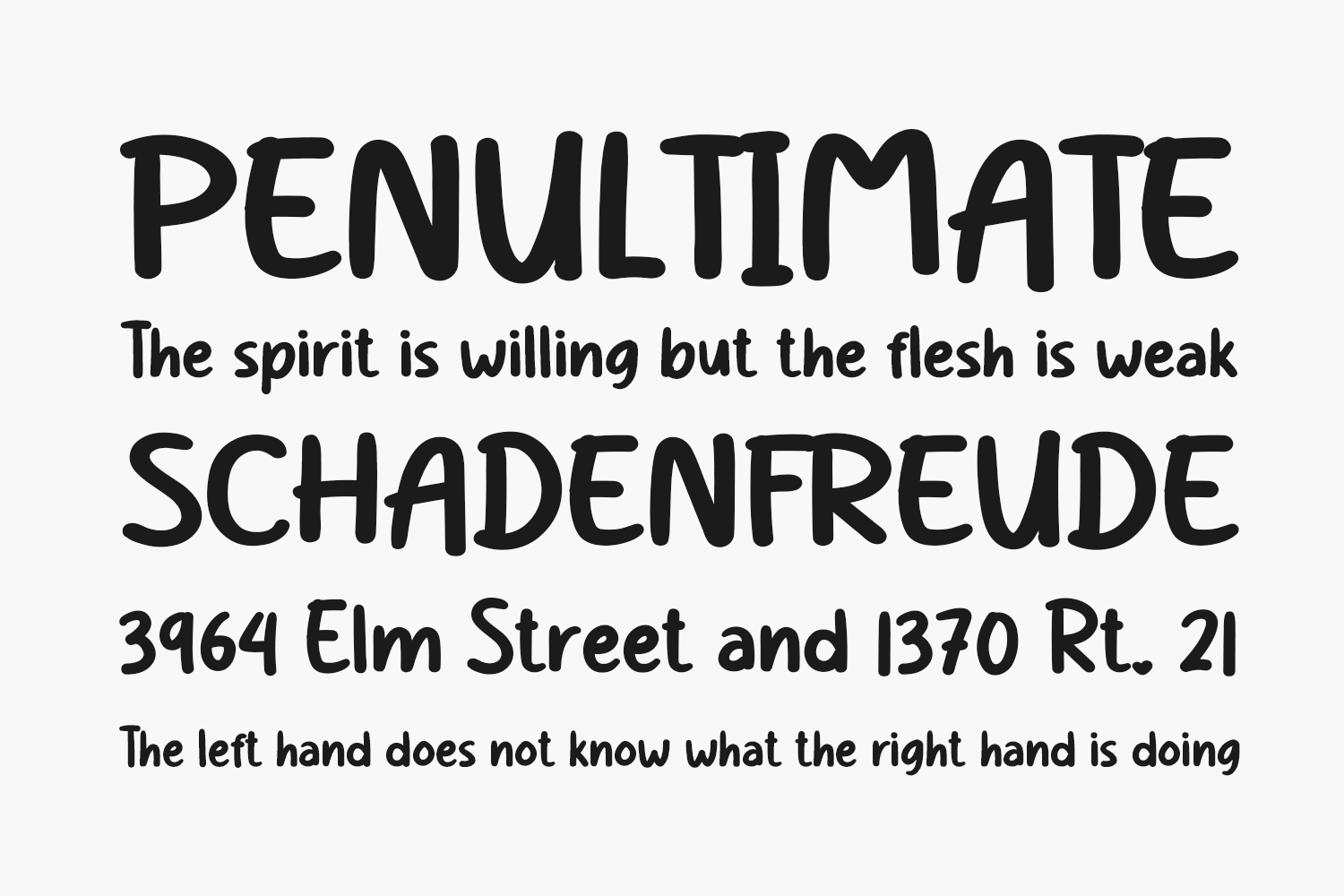
Education Childsmart Free Font is a cute, jolly and paint brushed display font. This font is perfect for children themed designs, especially when combined with bright colors. Education Childsmart Free Font was designed by Metal Studio and is free for personal use only. Please purchase the full version for commercial use.